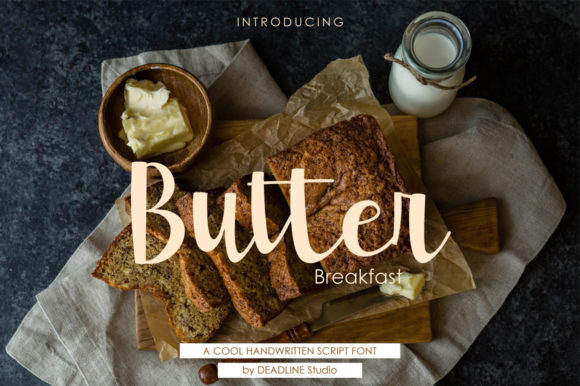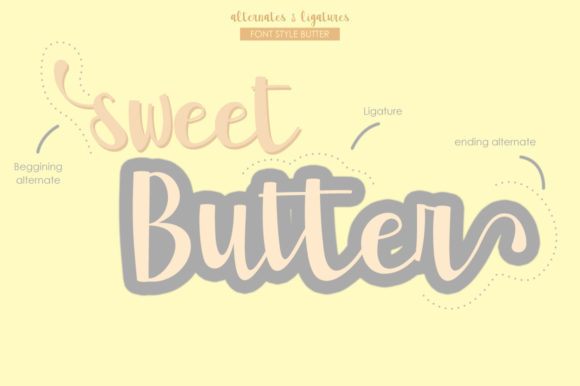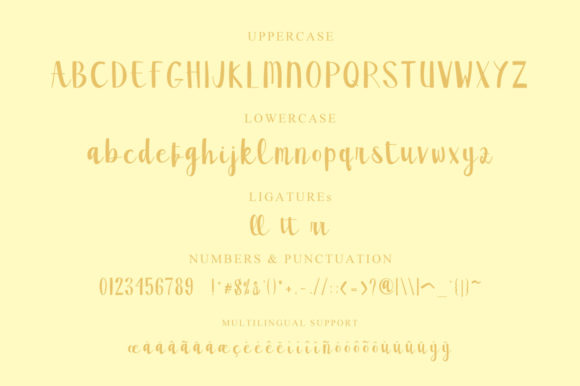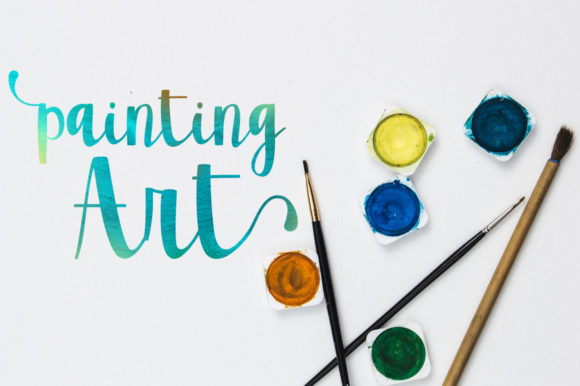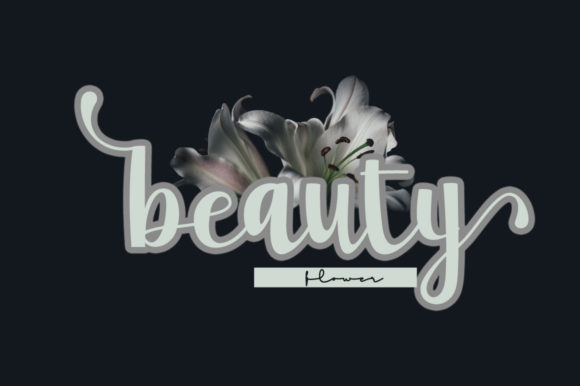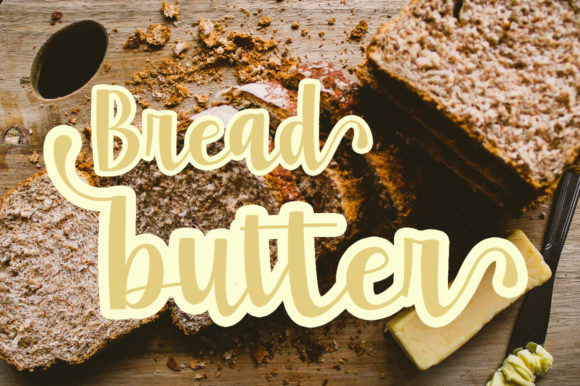
Butter Font
About Butter Font
Butter feels equally charming and elegant. This font is PUA encoded which means you can access all of the glyphs and swashes with ease!